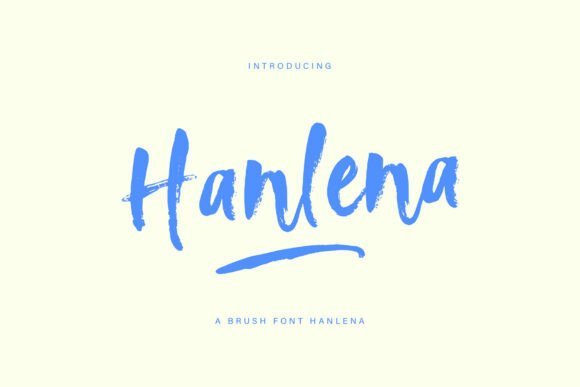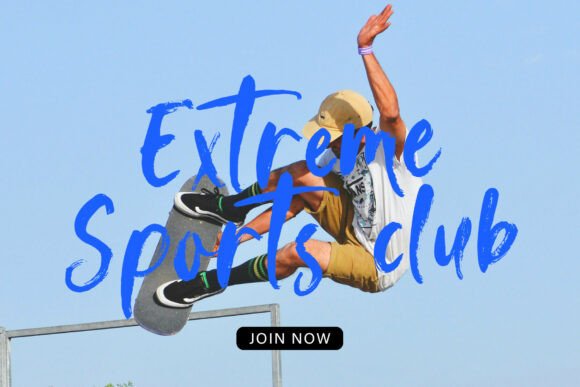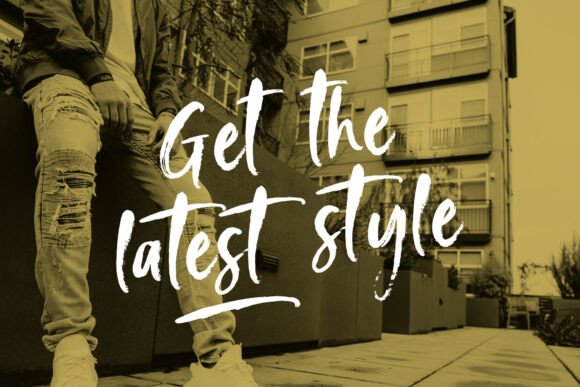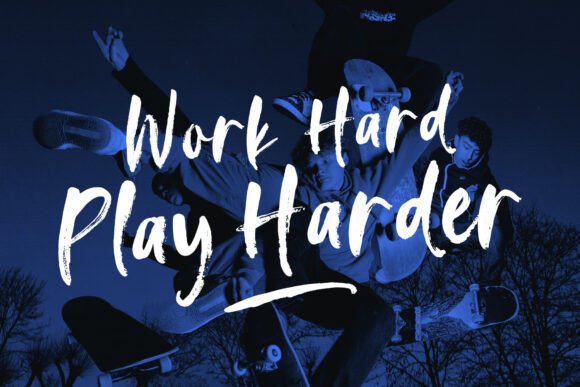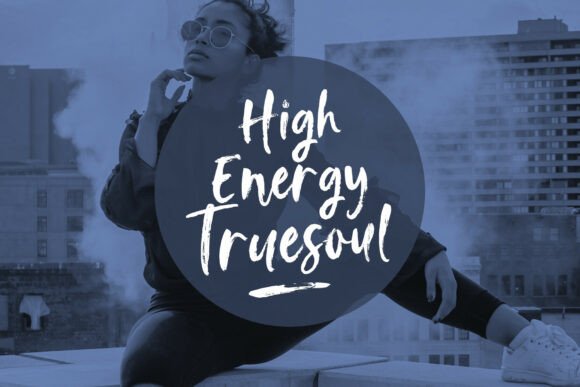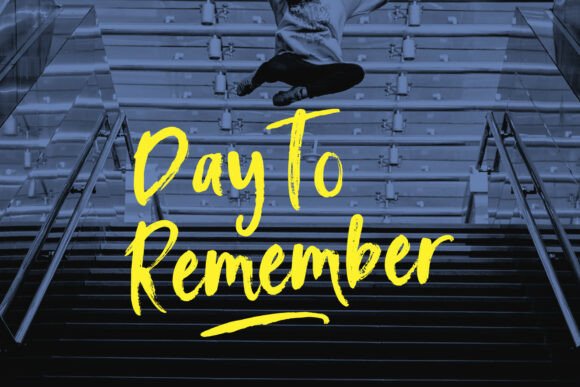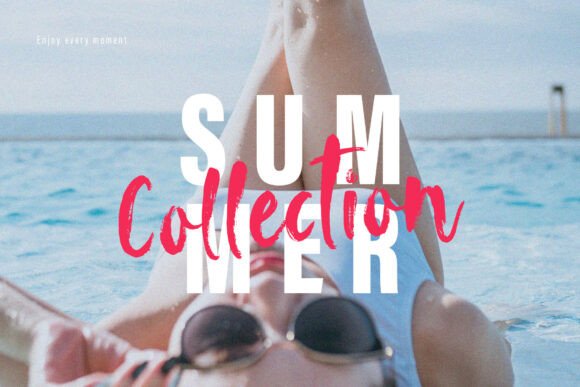
Where Creativity Meets Authenticity: The Hanlena Brush Font
Have you ever sat at your desk, staring blankly at a blank page, waiting for inspiration to strike? Maybe it’s the sound of your pen scratching against paper, or the feeling of your brush gliding across the canvas that sparks your creativity. Whatever it is, as designers, we know that the right tools can make all the difference in bringing our ideas to life.
Enter the Hanlena Brush Font, a modern handwritten font that captures the authentic texture of a brush. Its unique blend of style and simplicity makes it the perfect choice for branding and digital design. Whether you’re creating a logo, a web page, or a social media post, the Hanlena Brush Font is the perfect addition to your design arsenal.
Hanlena Brush Font Key Features
- Font Family: Hanlena Brush Font is a unique, handwritten font with a brush-like effect, perfect for creating artistic and creative designs.
- Size: Hanlena Brush Font comes in a single weight, making it easy to use in a variety of design contexts.
- Unique Characteristics: The font’s brush-like effect is achieved through a combination of hand-drawn strokes and subtle texture, giving it a distinctive, organic feel.
Hanlena Brush Font Review
Overall, I think Hanlena Brush Font is a unique and creative addition to any design project. ✨ The handwritten feel it brings to text is undeniable, and it’s perfect for creating a more personal or artistic tone. ✨ The font’s flexibility in terms of style and size makes it suitable for a wide range of applications, from headings to body text.
However, there are a few limitations to consider. ⚠️ The font may not be the best choice for large blocks of text, as the handwritten feel can become overwhelming. ⚠️ Additionally, the font may not be suitable for formal or professional projects, as it may come across as too casual or unprofessional.
Here are some specific pros and cons:
- ✨ Unique and creative feel that adds a personal touch to text
- ✨ Flexible in terms of style and size
- ⚠️ May not be suitable for large blocks of text
- ⚠️ May not be suitable for formal or professional projects
Overall, I think Hanlena Brush Font is a great choice for designers who want to add a creative and personal touch to their projects. With its unique feel and flexibility, it’s perfect for a wide range of applications.
Tips for Getting the Most Out of Hanlena Brush Font
Here are a few tips for getting the most out of Hanlena Brush Font:
- Use it for creative and artistic projects, such as invitations, posters, and branding materials.
- Experiment with different font sizes and styles to achieve a unique look.
- Pair it with other creative fonts to add depth and interest to your design.
Here are a few common use cases for Hanlena Brush Font:
- Invitations and event materials.
- Artistic and creative projects.
Alternatives to Hanlena Brush Font for Designers
Pacifico is a beautiful, elegant script font perfect for creating a luxurious and sophisticated look. It is ideal for use in branding, advertising, and editorial design. Pacifico has a similar feel to Hanlena Brush Font, but with a more refined and polished look.
Comparison: Pacifico has a more refined and elegant feel compared to Hanlena Brush Font, which has a more casual and handwritten feel.
Great Vibes is a modern script font that is perfect for creating a fun and energetic look. It is ideal for use in branding, advertising, and web design. Great Vibes has a similar feel to Hanlena Brush Font, but with a more modern and dynamic look.
Comparison: Great Vibes has a more modern and dynamic feel compared to Hanlena Brush Font, which has a more casual and handwritten feel.
Q: Can I customize the Hanlena Brush Font to fit my specific design needs?
Yes, the Hanlena Brush Font is designed to be highly customizable. You can adjust font sizes, colors, and styles to fit your project’s requirements. Additionally, the font includes advanced OpenType features, such as ligatures, swashes, and contextual alternates, which can be accessed using your design software’s font tools and features.